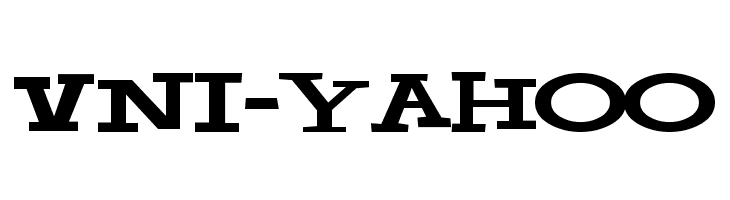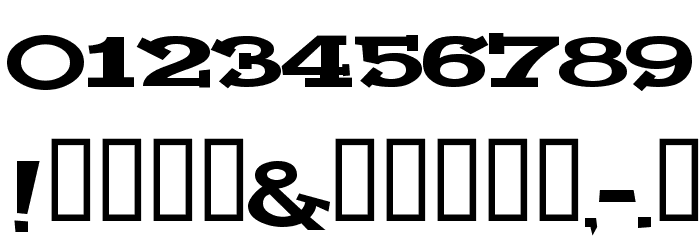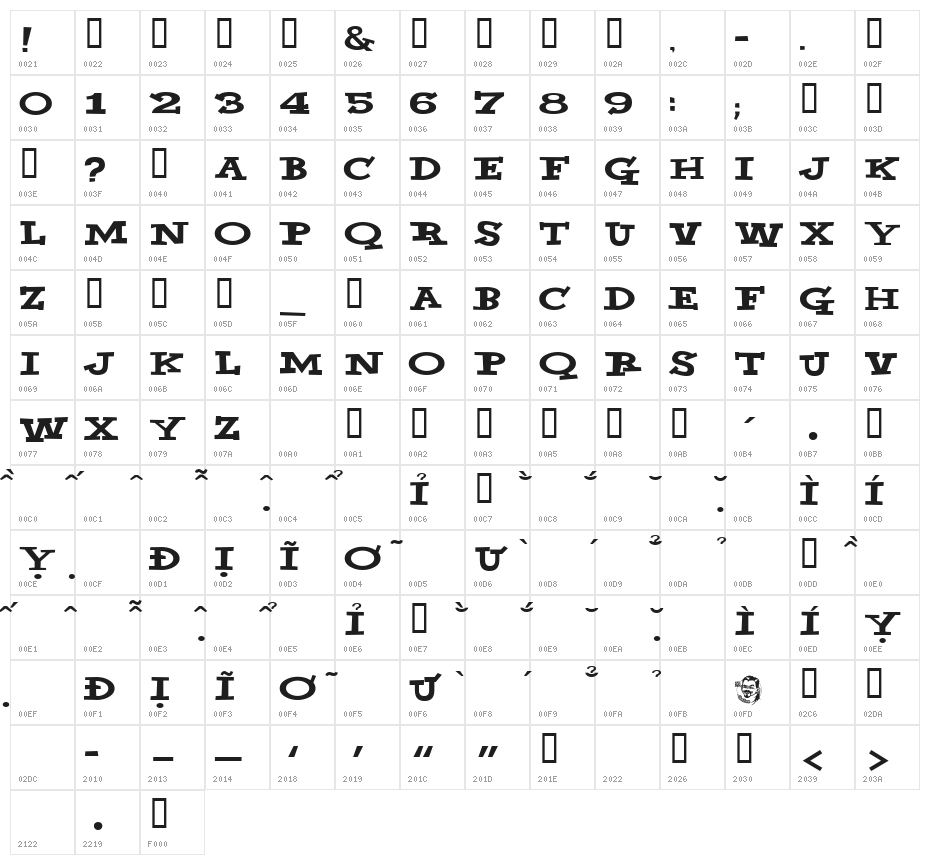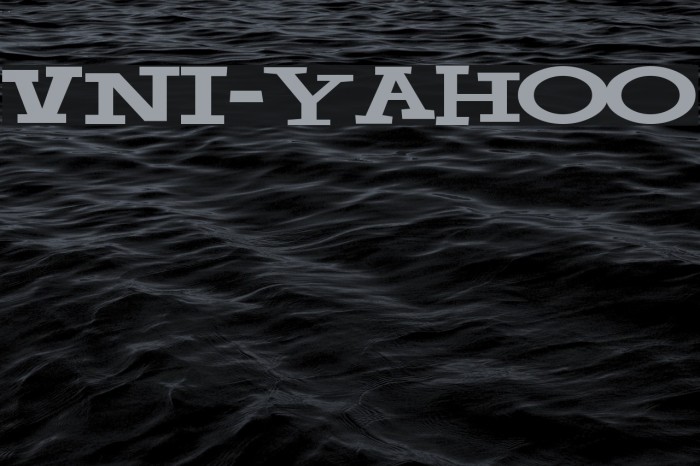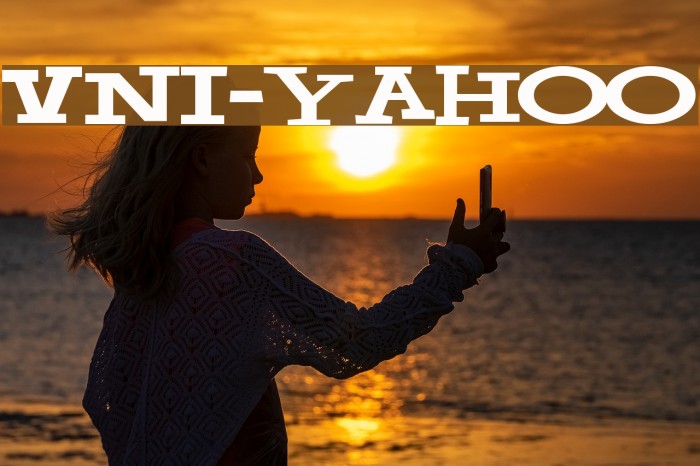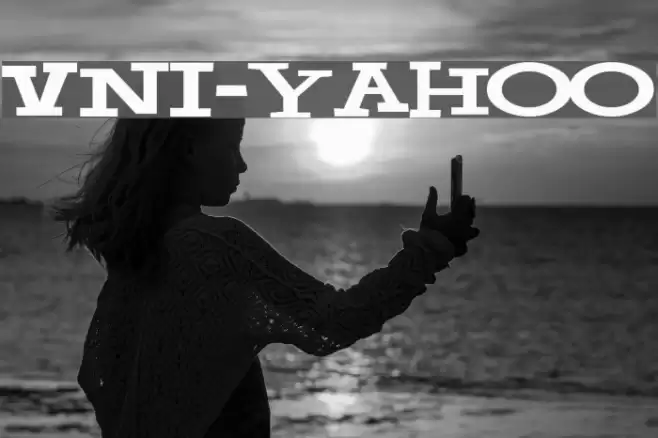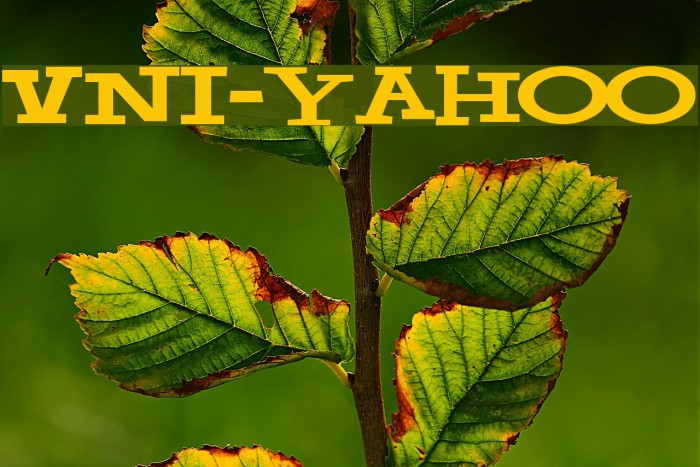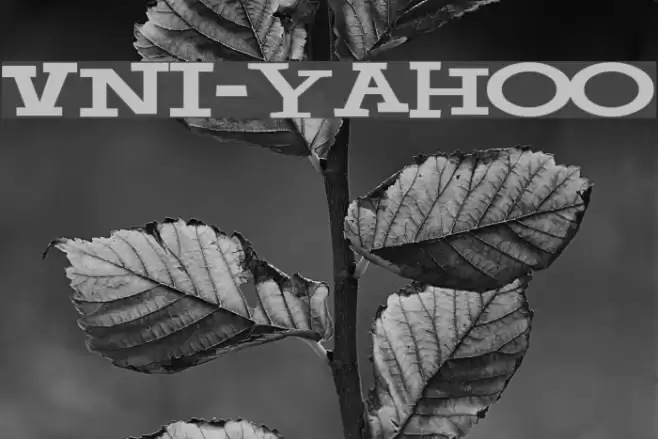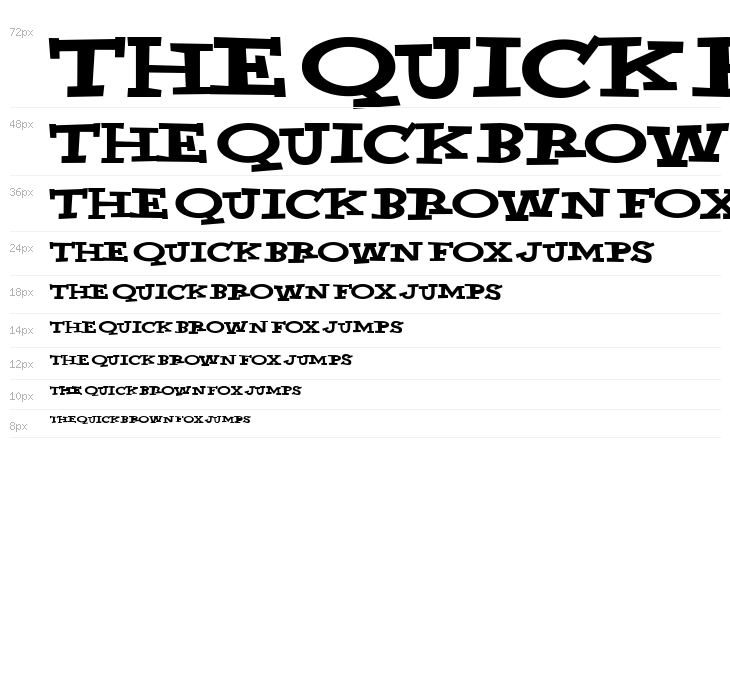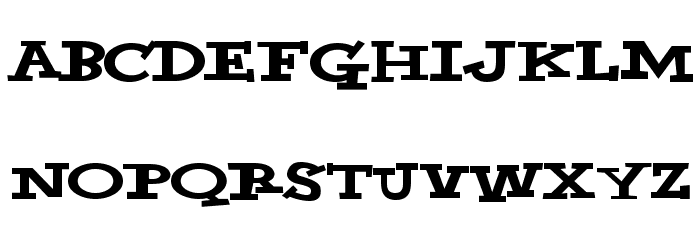
VNI-Yahoo Font
VNI-Yahoo Description
This font features a bold and dynamic style with a strong presence. The characters are designed with a distinct slab serif, giving them a robust and authoritative look. The uppercase letters are particularly striking, with wide, angular serifs that add to their boldness. The lowercase letters maintain the same strong serif style, ensuring consistency across the typeface. The numerals are equally bold, making them stand out clearly. Special characters are included, maintaining the same bold and structured design. This font is ideal for making a statement, with its high contrast and strong lines.
| Proposed Projects | Ideal for headlines, posters, branding, and any project requiring a bold, impactful typeface. |